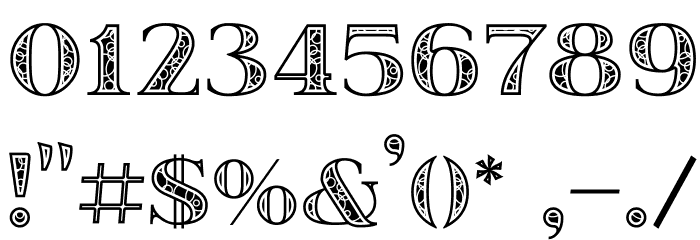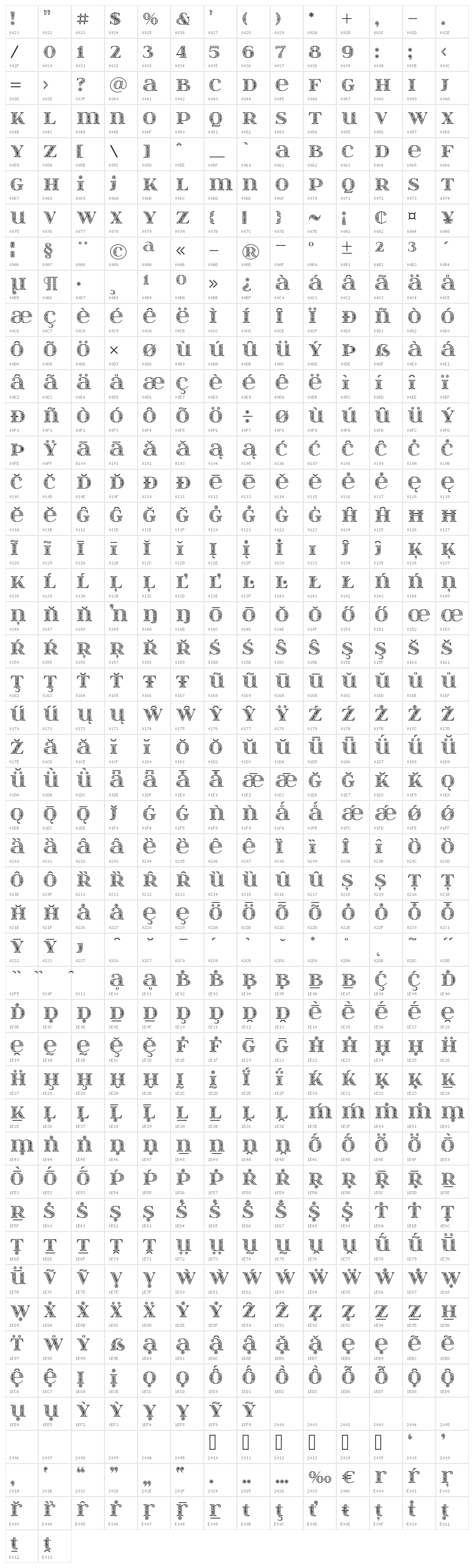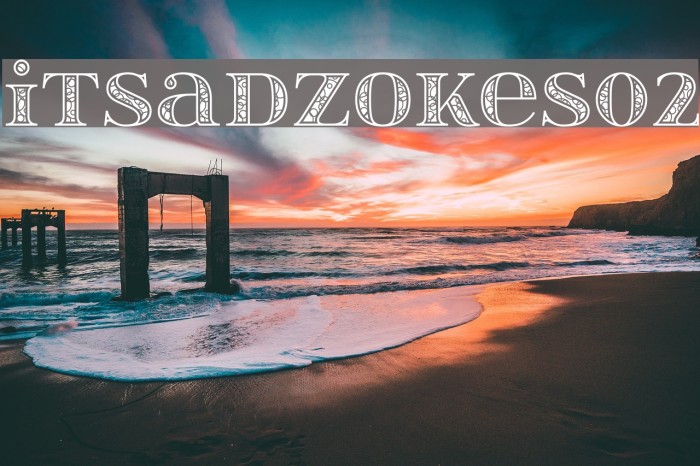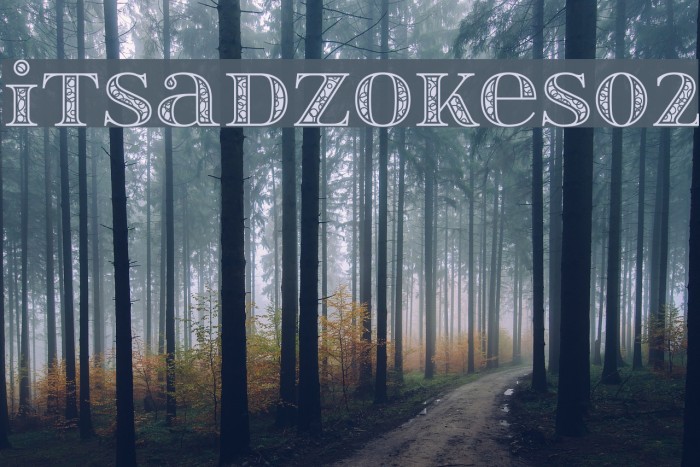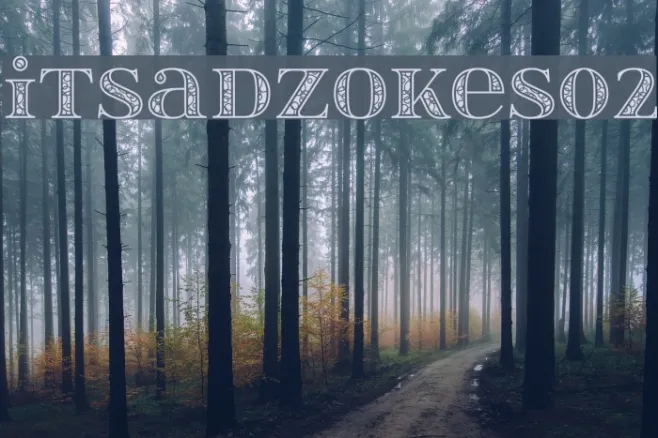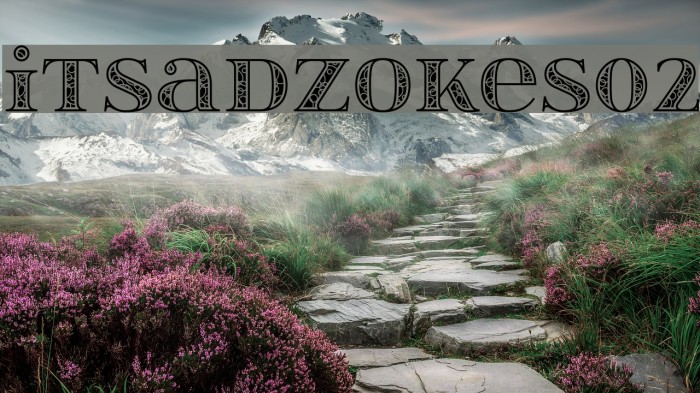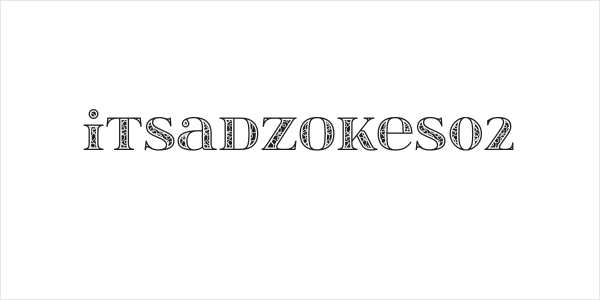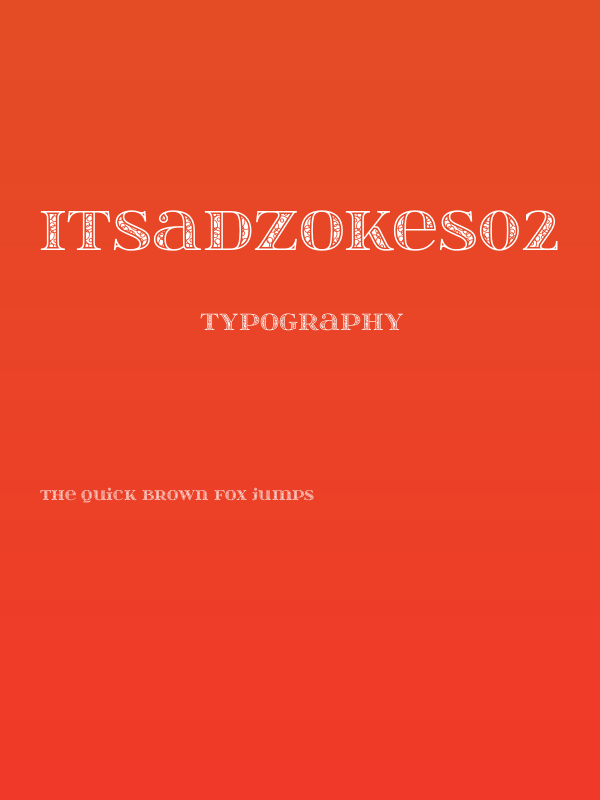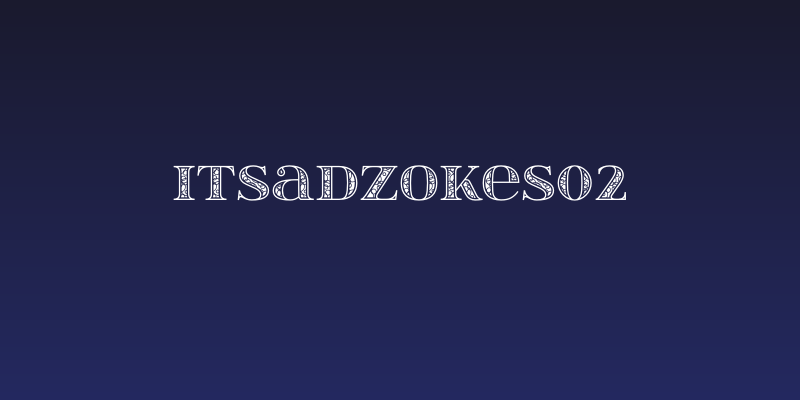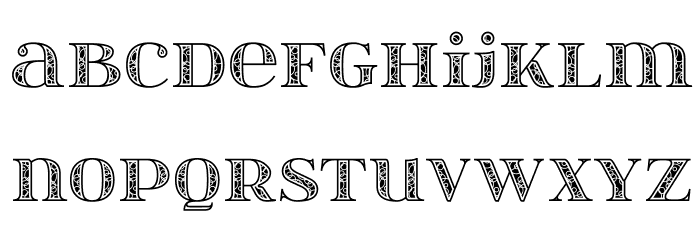
itsadzokeS02 Font
itsadzokeS02 Description
This font features an ornate and decorative style with intricate patterns filling the interior of each character. The uppercase and lowercase letters maintain a consistent design, showcasing a blend of traditional serif elements with a modern twist. The numbers and special characters follow the same decorative theme, making the font suitable for eye-catching designs. The detailed patterns within each character add a unique flair, making it ideal for projects that require a touch of elegance and sophistication.
| Proposed Projects | Ideal for wedding invitations, luxury branding, vintage posters, and artistic book covers. |